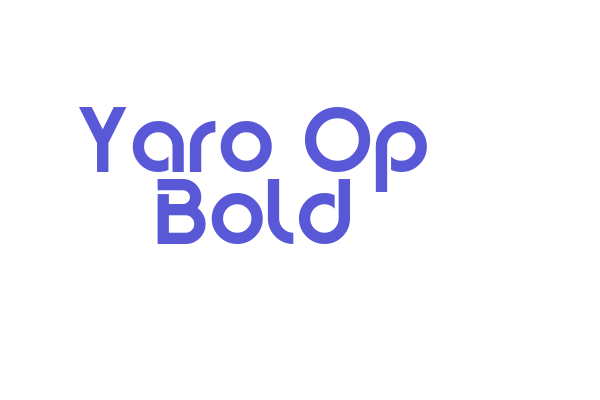
Yaro Op Bold is a sleek and modern sans serif font designed by Vlad Berla. Part of the Yaro font family, this bold style is perfect for making a statement in headlines, logos, and branding projects. Its clean lines and minimalist design make it ideal for a wide range of basic design projects.
Font Name: Yaro Op Bold
Designer: Vlad Berla
Font Family: Yaro Op Bold